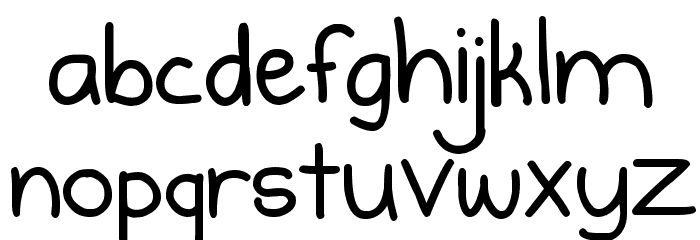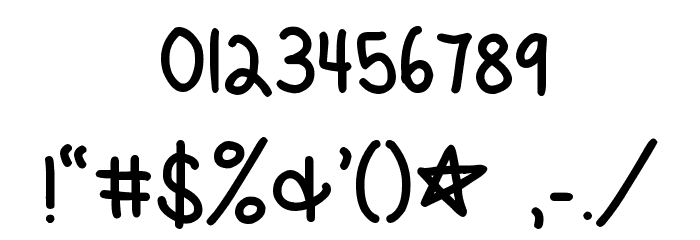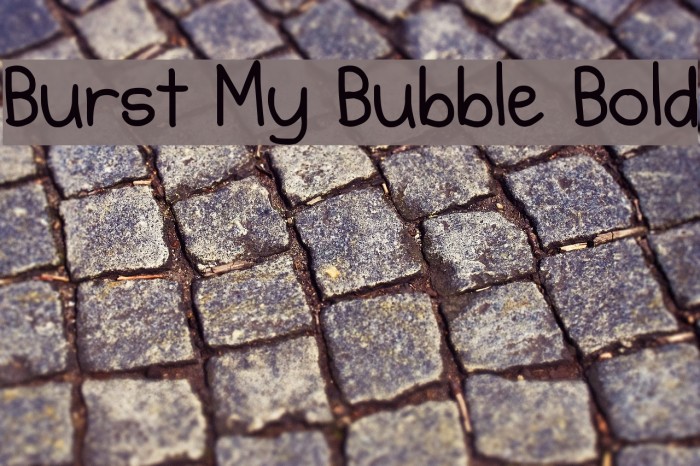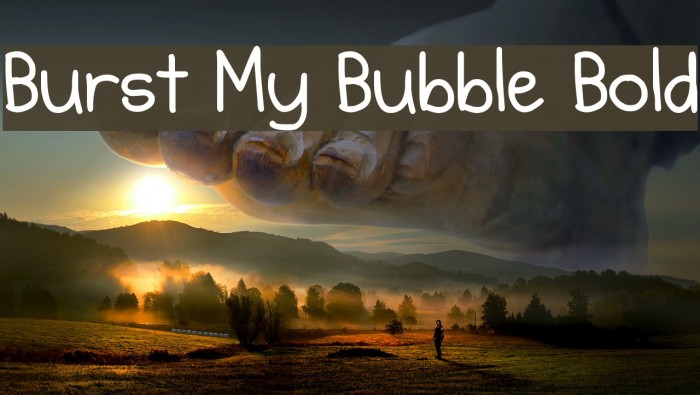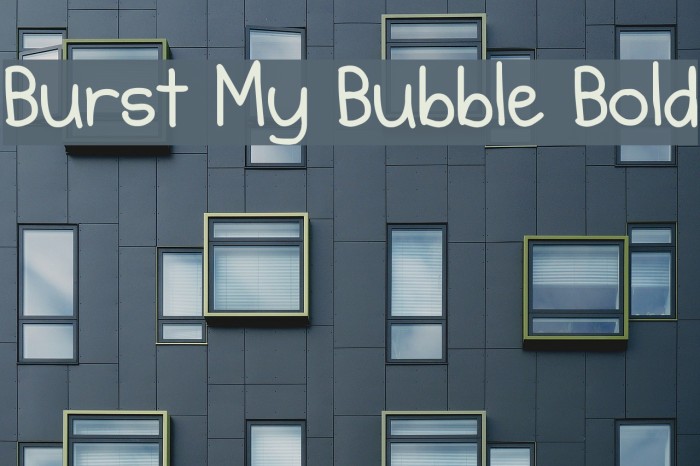
Burst My Bubble Bold Font
This playful and whimsical font features rounded, bubbly characters that convey a sense of fun and lightheartedness. The letters are bold and slightly irregular, giving them a hand-drawn appearance that adds to their charm. The uppercase and lowercase letters maintain a consistent style, with smooth curves and a friendly demeanor. Numbers and special characters are equally playful, making this font suitable for a variety of creative projects. The overall design is approachable and informal, perfect for capturing attention in a casual setting.
A playful, bubbly font with a hand-drawn, whimsical style.
- Proposed Projects: Ideal for children's books, playful branding, party invitations, and casual social media graphics.
- Overall Style: Playful, Whimsical